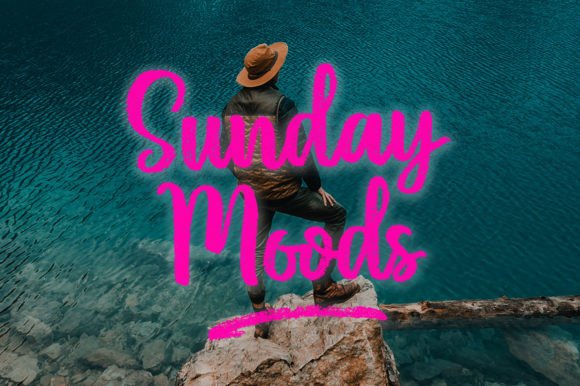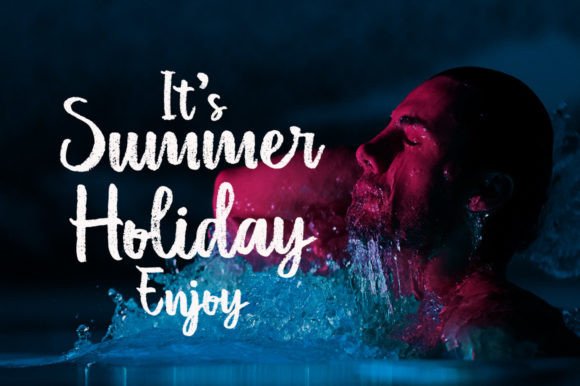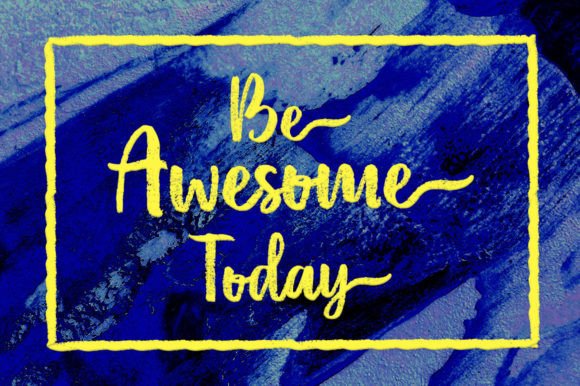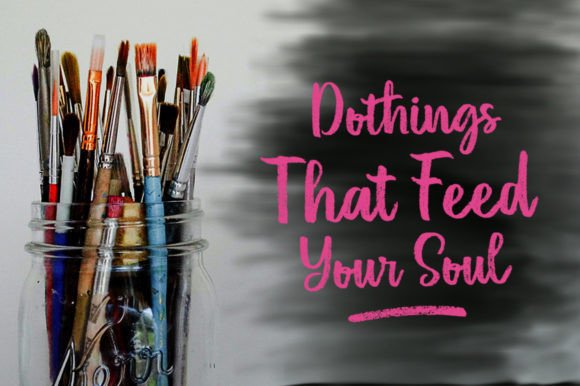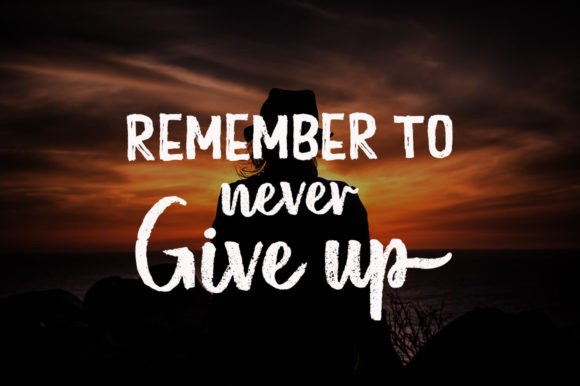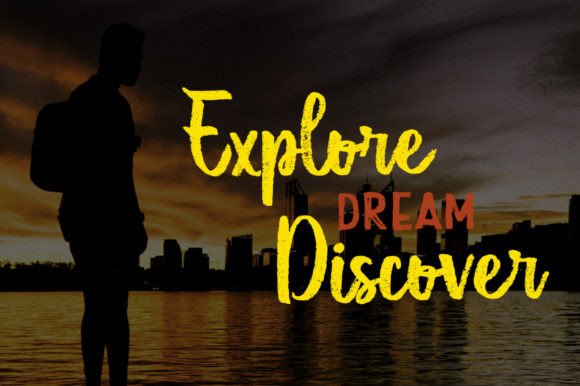
Introduction to Shardie Font
Enter the Shardie Font, a beautiful handwritten brush script font that’s perfect for adding a personal touch to your greeting cards, invitations, and motivational quotes. With its PUA encoding, you’ll have access to all of the amazing glyphs and ligatures, allowing you to create high-quality designs with ease.
Key Features of Shardie Font
- Unique, cursive design ideal for creative projects and design resources.
- Perfect for use in digital design, graphic design, and print media, including posters, flyers, and business cards.
Honest Review: Shardie Font
I recently stumbled upon the Shardie Font, and I must say it’s a great addition to any designer’s toolkit. As a design resource, it offers a lot of versatility and can be used for a wide range of creative projects.
- ✨ The Shardie Font comes in a range of weights and styles, making it easy to match with any design aesthetic.
Overall, I’m impressed with the Shardie Font. It’s a high-quality design resource that can add a lot of value to any creative project. While it may have some limitations, it’s definitely worth checking out for designers looking for a free and versatile font.
The Shardie Font is a versatile and stylish design resource ideal for creative projects that demand a touch of elegance. With a transparent background, this font is perfect for adding a professional touch to your designs.
To get the most out of the Shardie Font, use it in combination with high-quality images and graphics to create a cohesive and visually appealing design. Experiment with different font sizes, colors, and arrangements to achieve the desired look.
The Shardie Font is perfect for:
- Creating elegant invitations and wedding stationery
- Designing professional business cards and letterheads
- Adding a touch of sophistication to your social media graphics